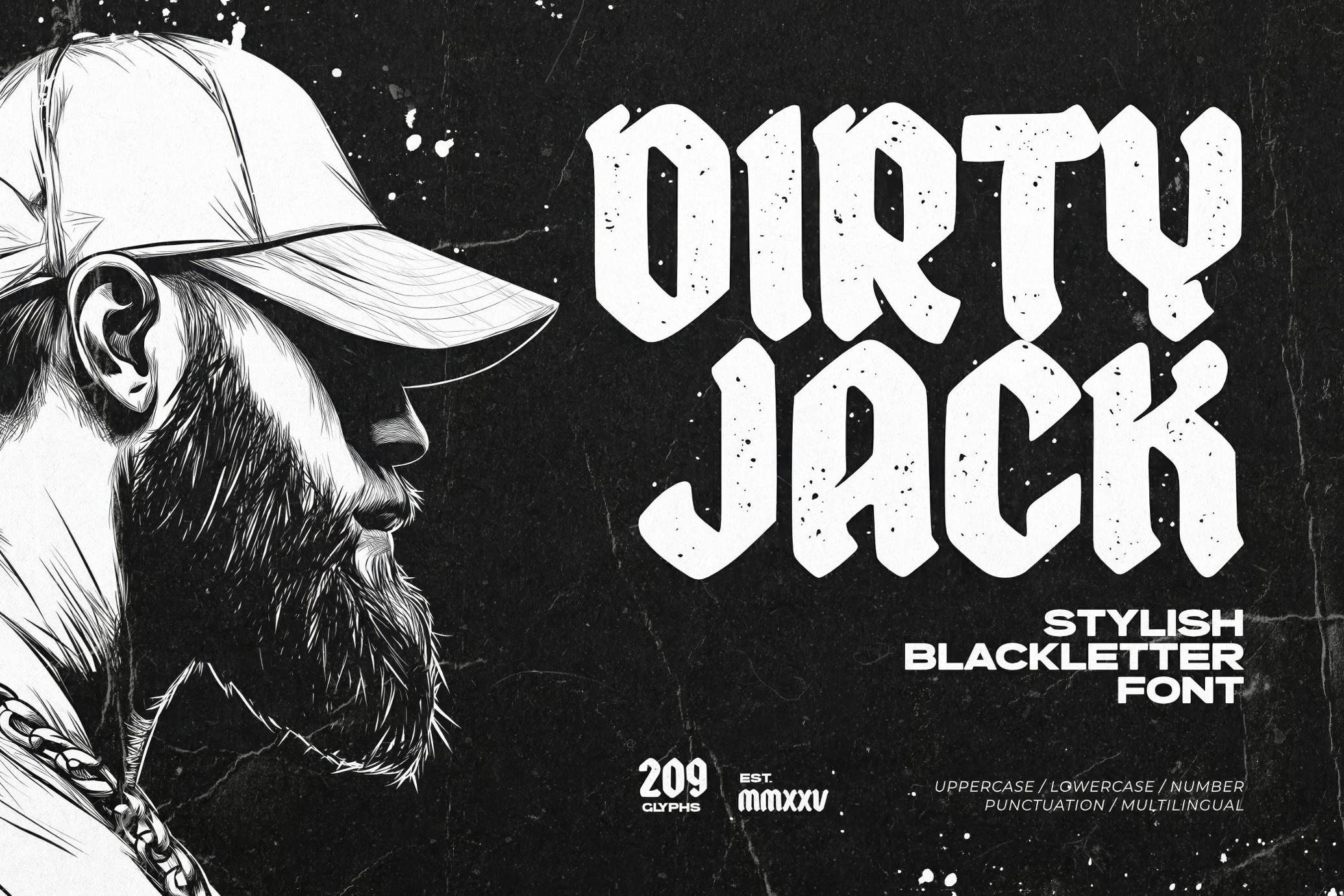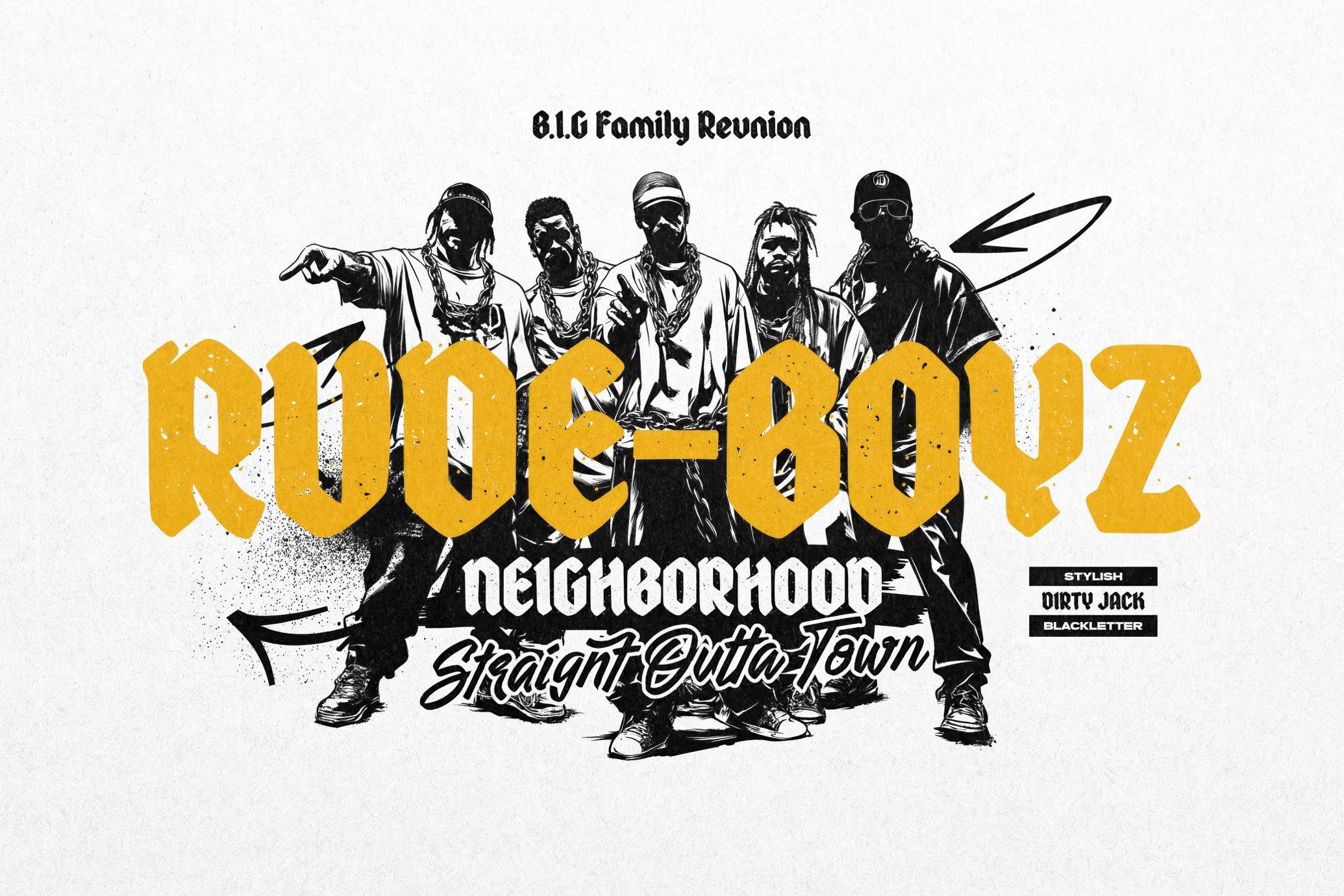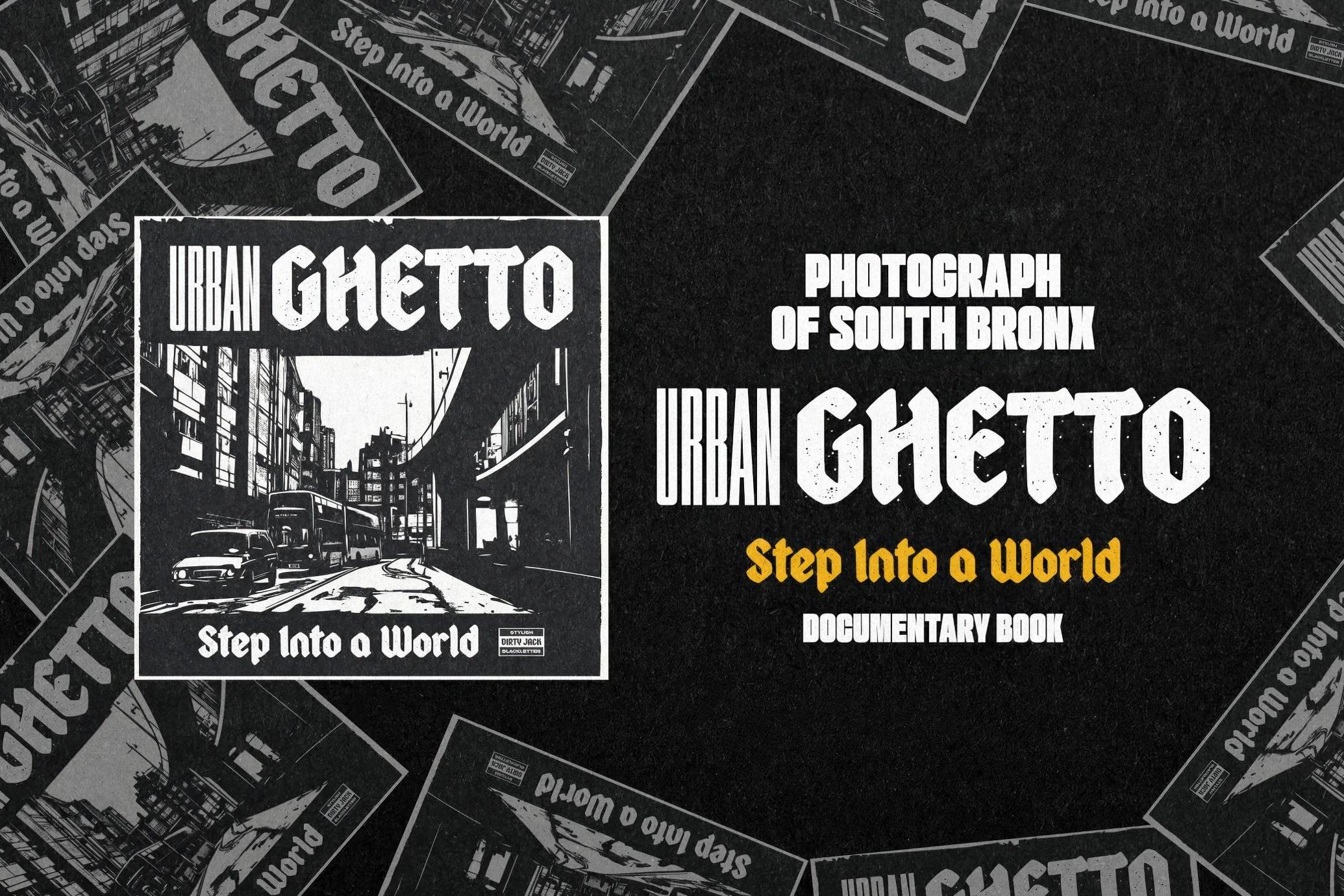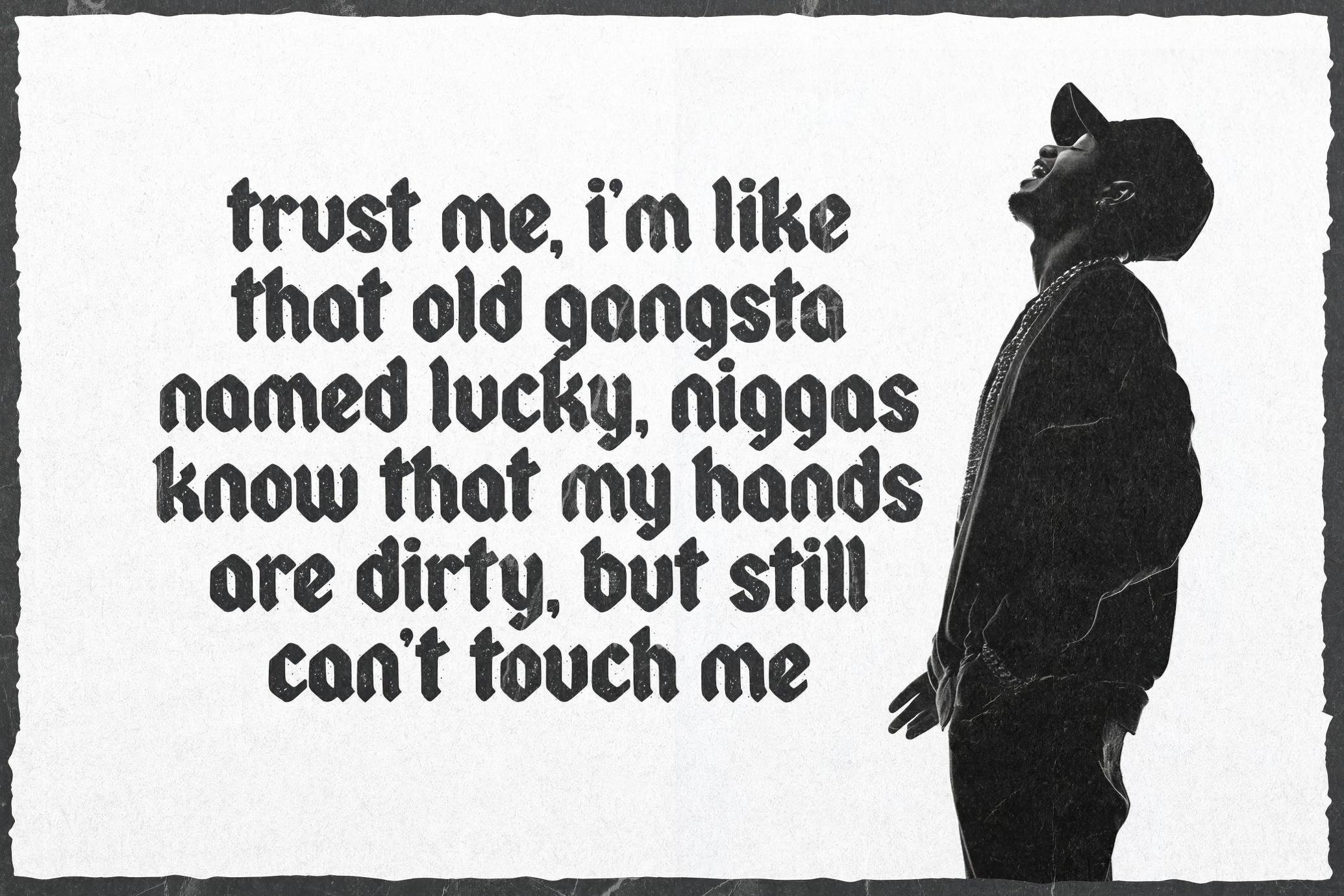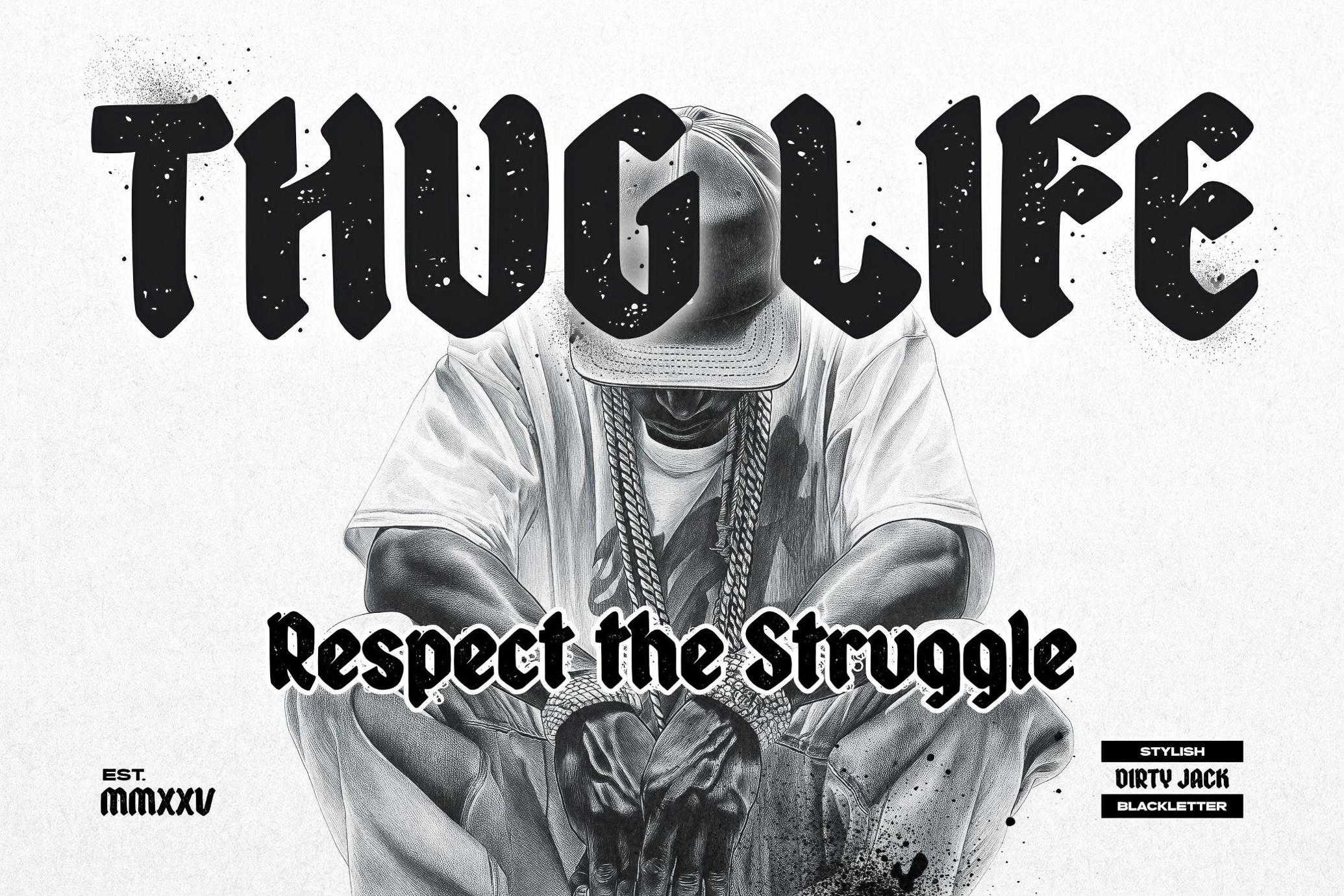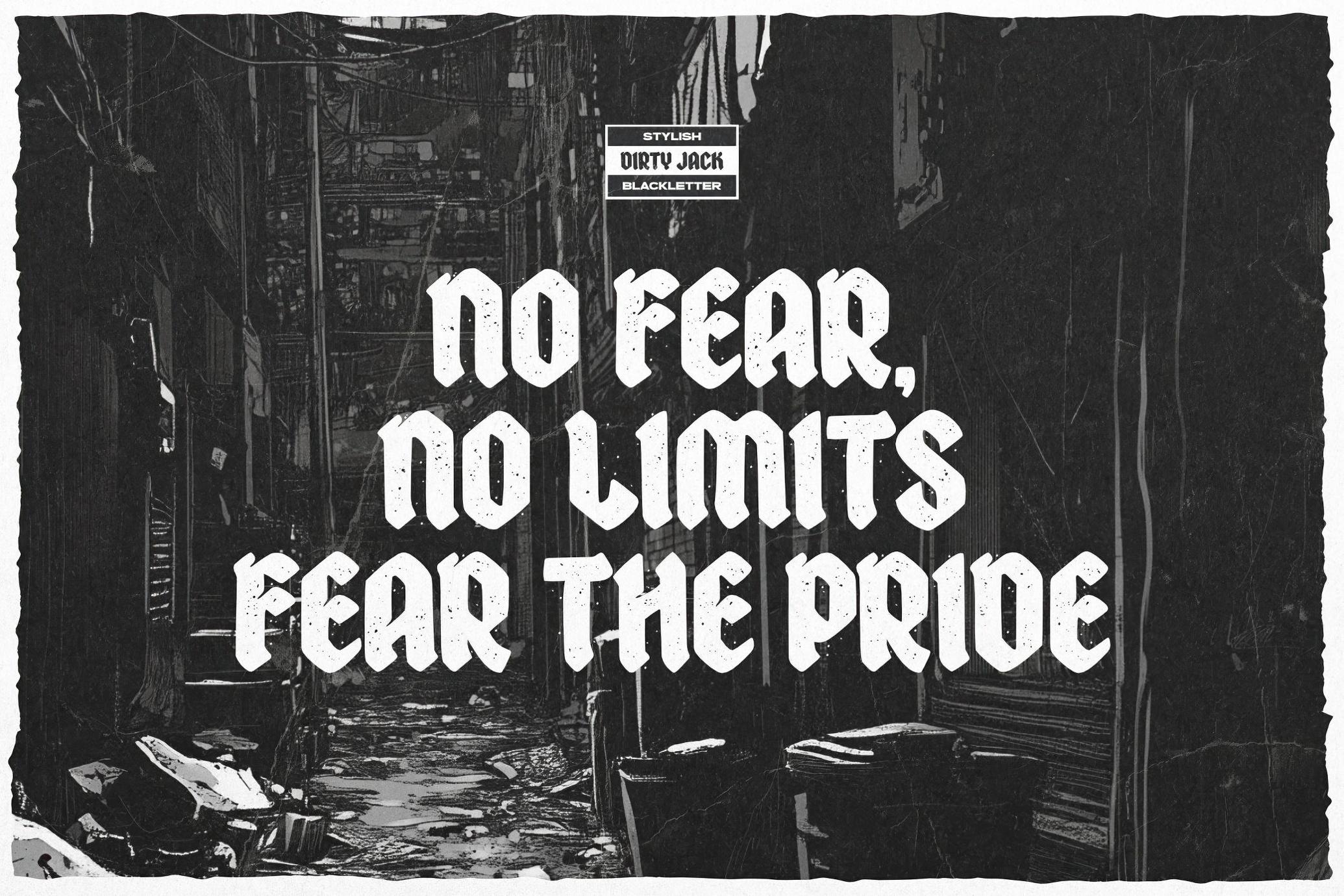
Dirty Jack — Stylish Blackletter Font
Forget clean lines or polite curves — the Dirty Jack is the street preacher of blackletter fonts. With splattered textures and sharp, swaggering forms, it walks straight out of a dive bar and into your design, dripping with underground grit and DIY defiance. It’s punk show flyers, tattoo shop signs, and that brutal streetwear label you’ve been sketching in your notebook combined. Packed with 209 glyphs, Dirty Jack gives you uppercase, lowercase, numbers, punctuation, and multilingual flair — because anarchy doesn’t care what language you speak. Use it when you want raw gothic attitude with a modern snarl— posters, branding, apparel design, it’s got you covered.